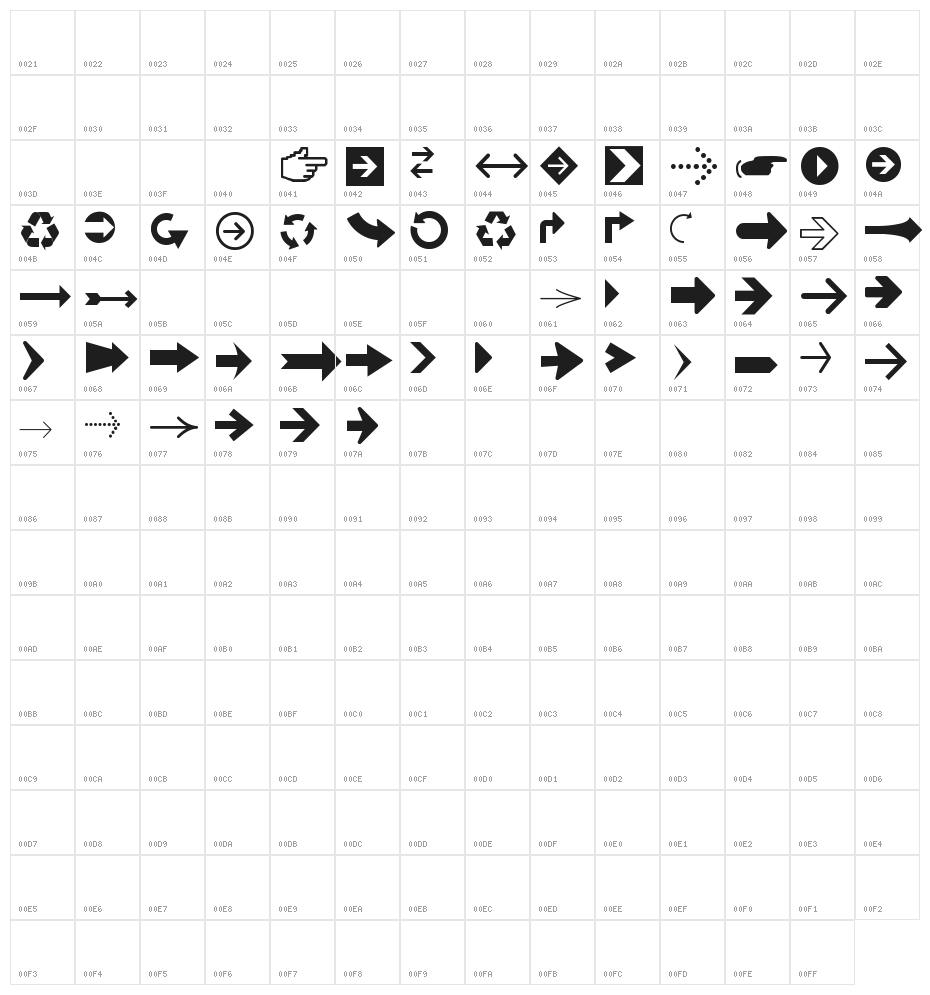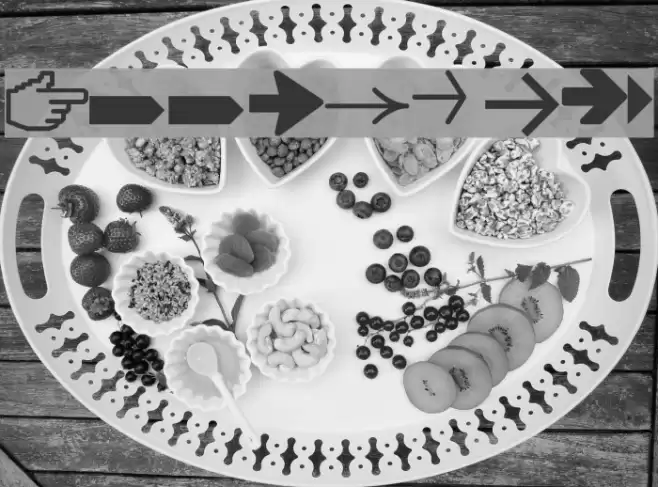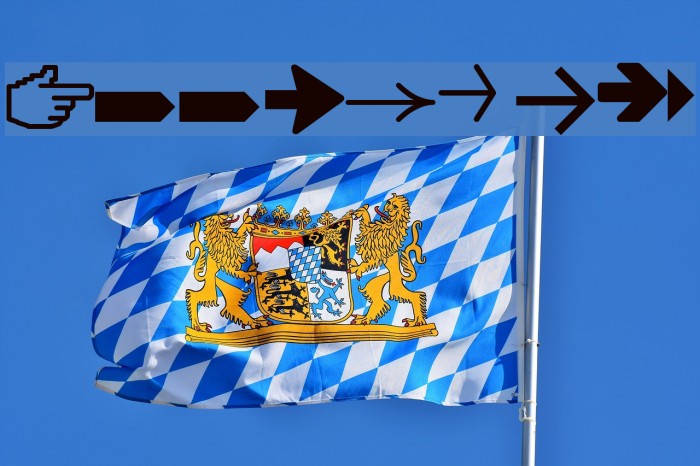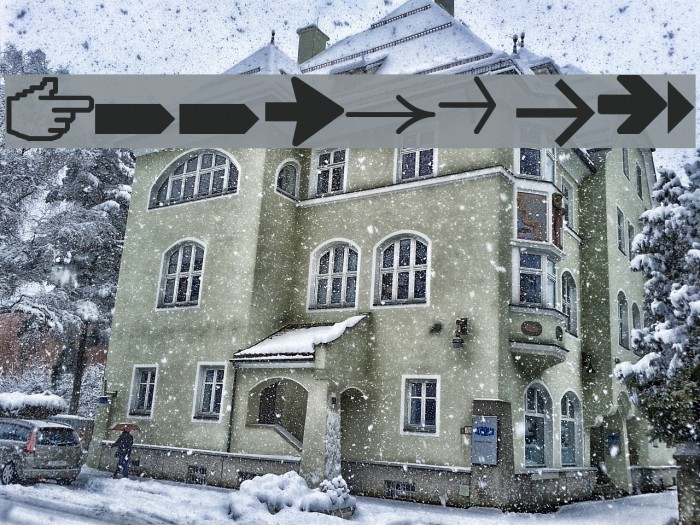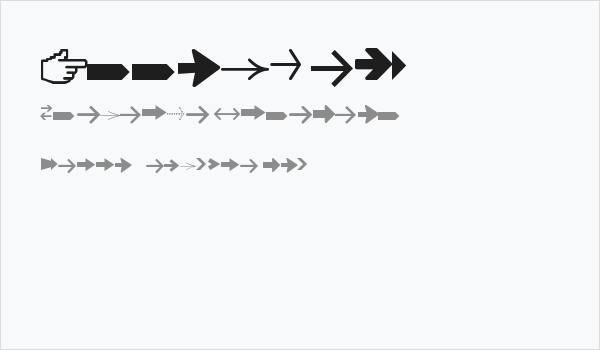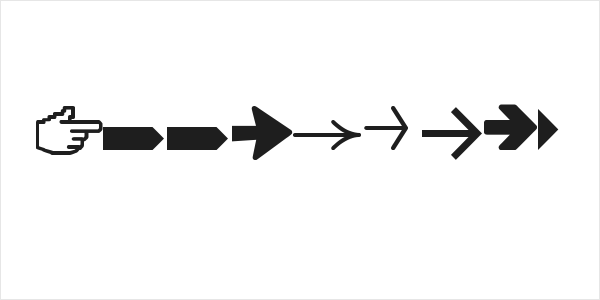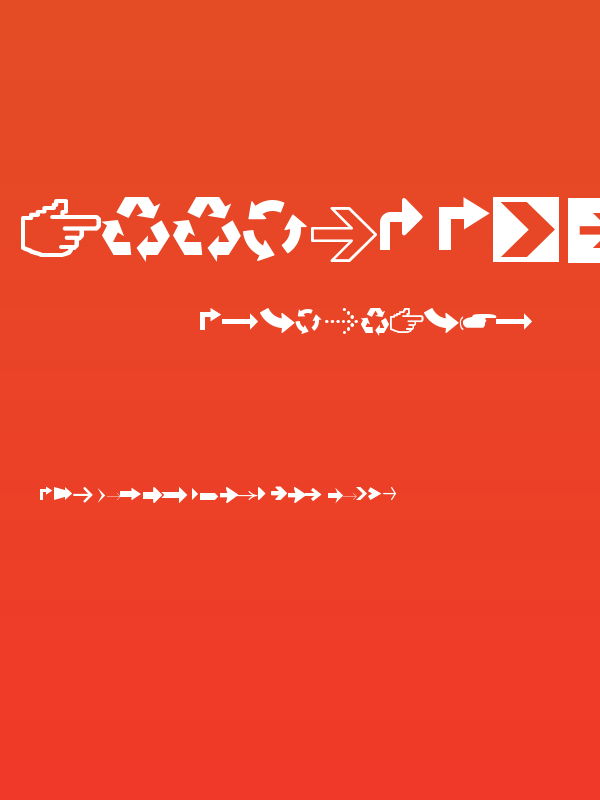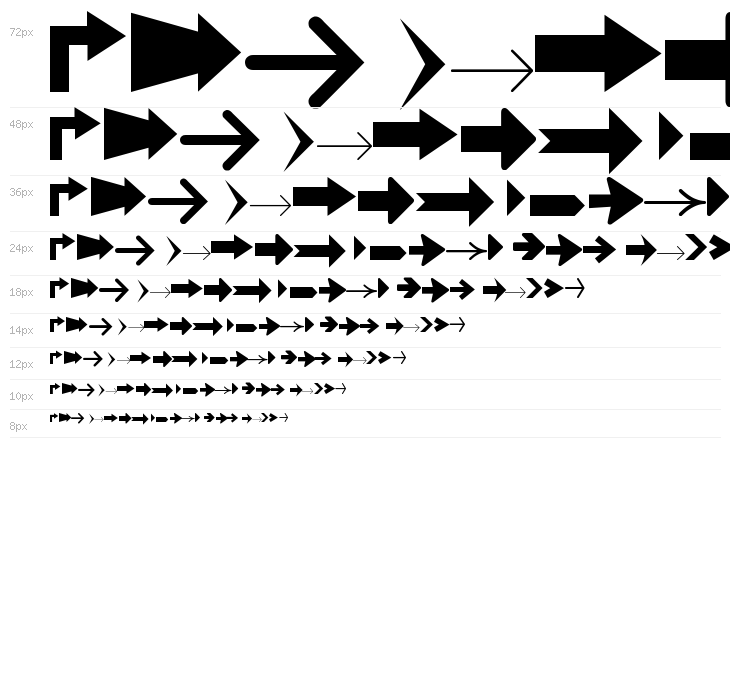
Arrows tfb Font
Arrows tfb Description
This collection features a diverse array of arrow designs, each with unique characteristics. The arrows range from simple, bold shapes to intricate, dotted patterns, providing a versatile selection for various design needs. Some arrows are enclosed in circles or squares, adding a decorative element, while others are straightforward with clean lines. The set includes both filled and outlined styles, offering options for different visual impacts. The variety in direction and style makes this set suitable for navigation, infographics, or creative projects requiring directional indicators.
| Use Case | Logos, Infographics, Navigation |
| Proposed Projects | Ideal for use in navigation interfaces, infographics, instructional materials, and creative design projects requiring directional elements. |